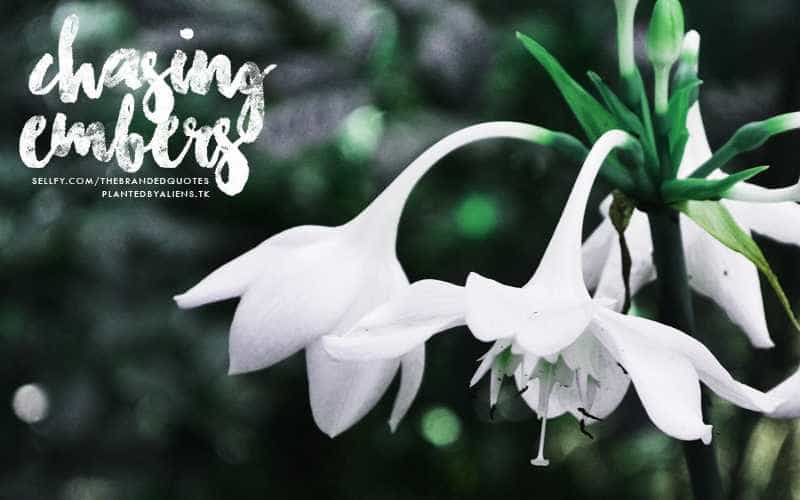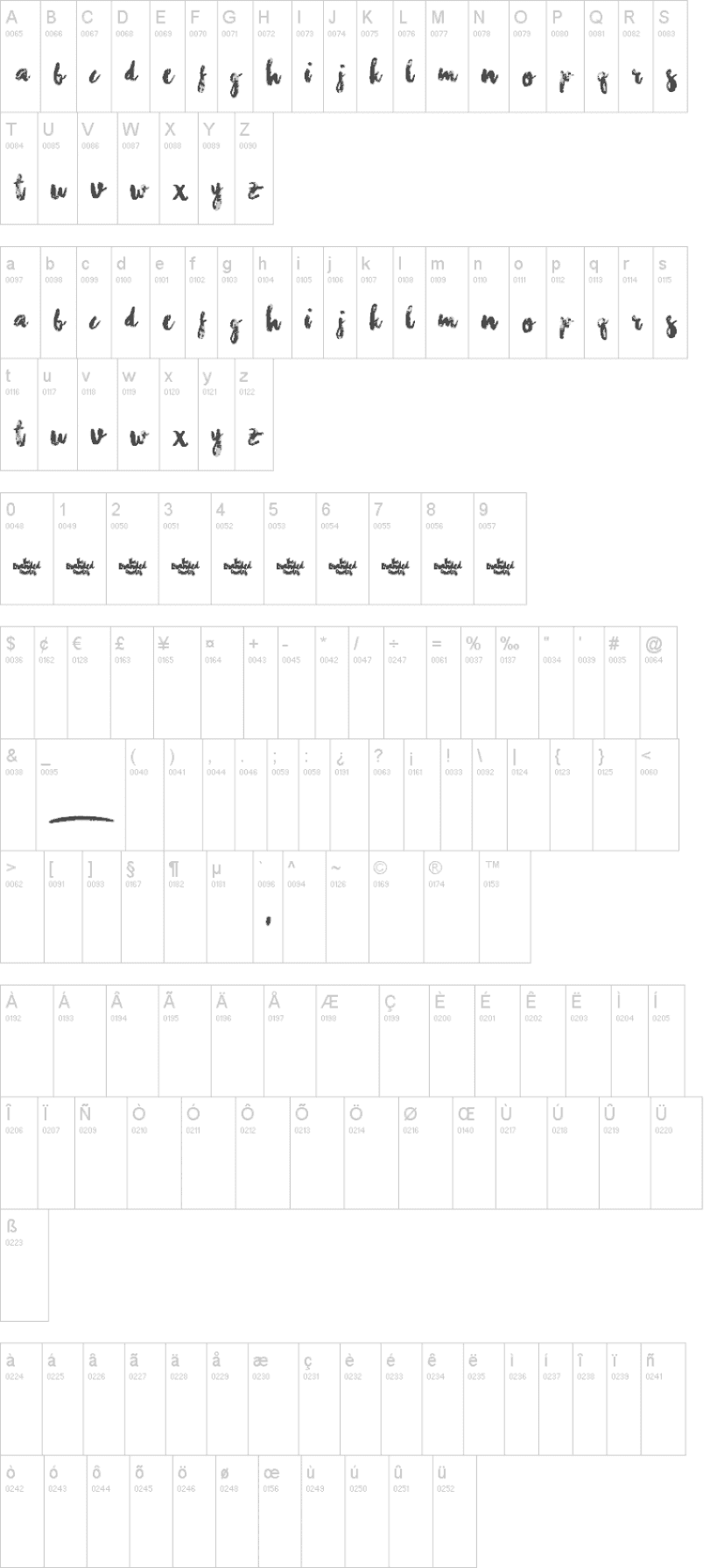
The product is called Typface and has its own ink/watercolor effect, that no longer needs overlays as it sits smoothly on projects and photos. As a camouflage tool to hide backgrounds that you place the font on, it is quite effective. Enjoy!